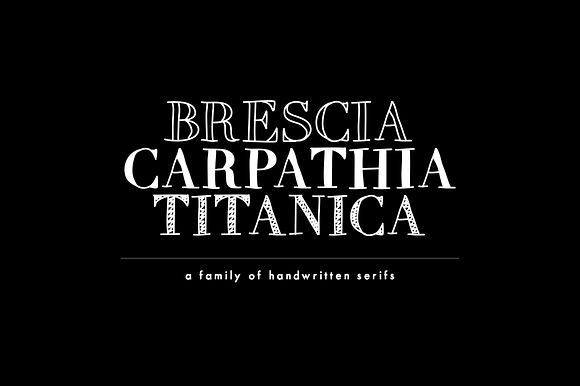
A Trio Of Handwritten Serifs
This is a family of handwritten serifs—a bundle of three different styles. These fonts can be used alone or in combination. Switch up among the three fonts to create fun and interesting variations. Get creative! This font family is perfect for handmade and DIY themed projects.